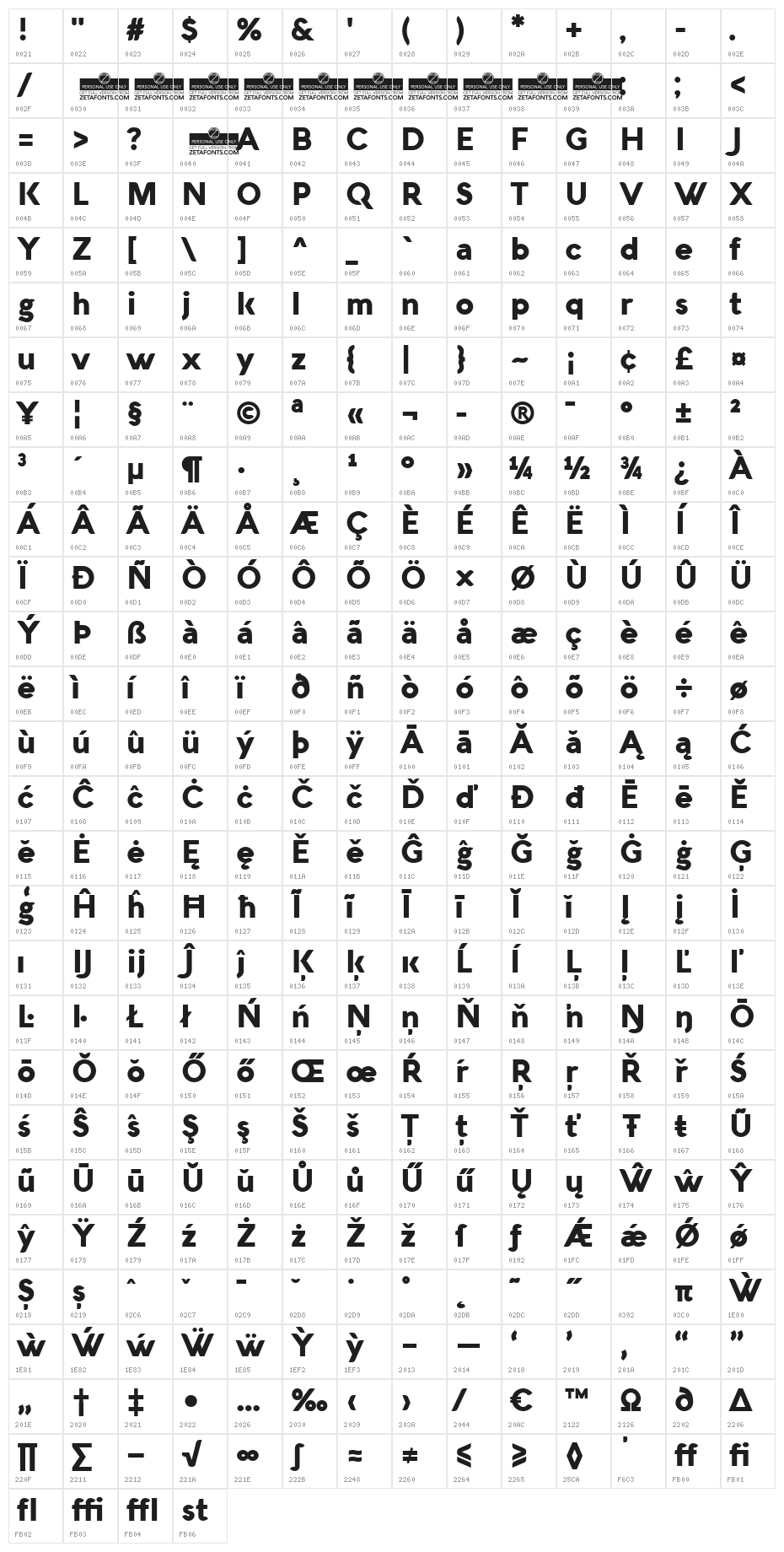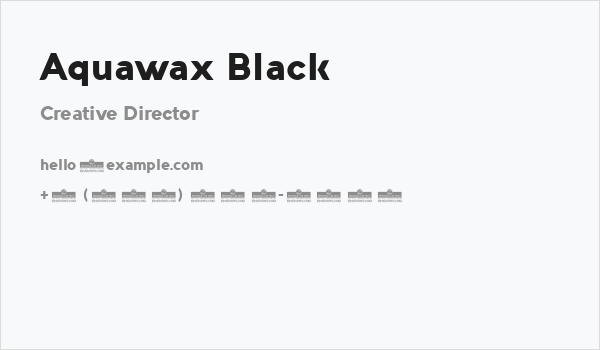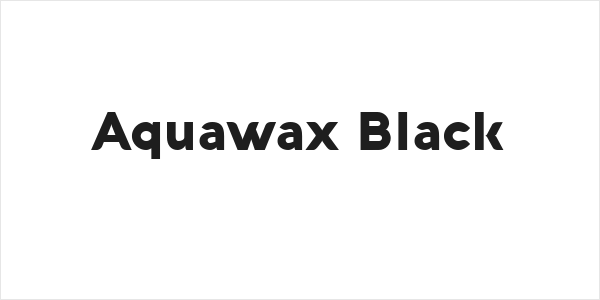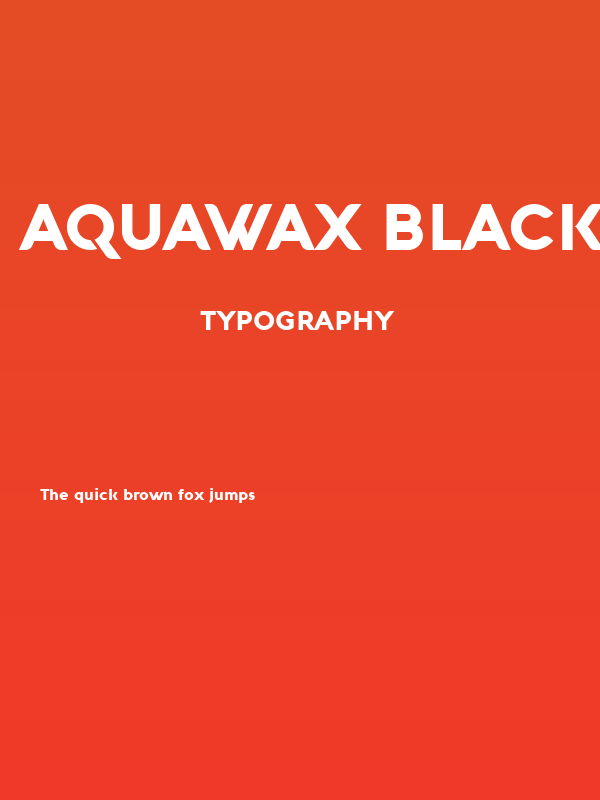
Aquawax Black Font
Aquawax Black Description
This font features a bold and modern design with clean, geometric lines. The uppercase letters are strong and impactful, making them ideal for attention-grabbing headlines. The lowercase letters maintain a consistent weight, providing a balanced and cohesive look. The numerals are clear and easy to read, while the special characters are designed with the same boldness, ensuring they stand out. The overall style is contemporary, making it suitable for a variety of digital and print applications. Its bold weight and normal width make it versatile for both display and text use.
| Proposed Projects | Ideal for branding, advertising, headlines, and digital media projects. |